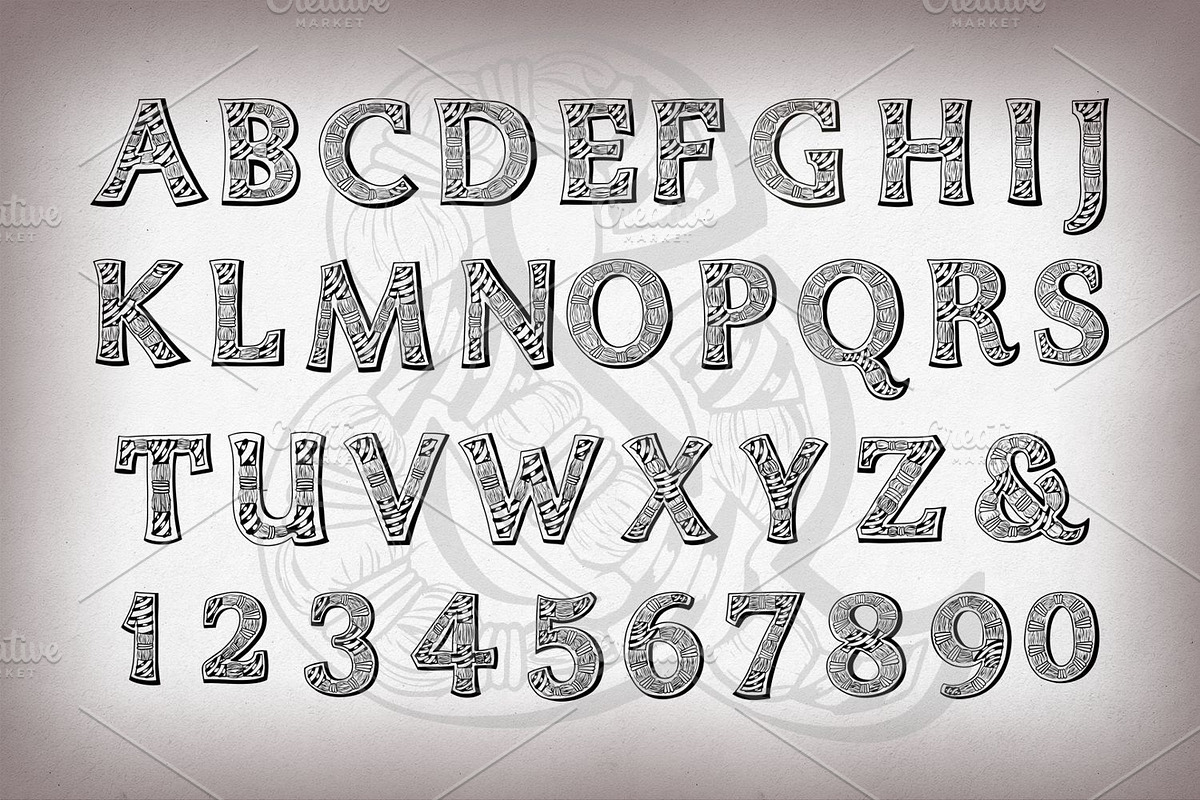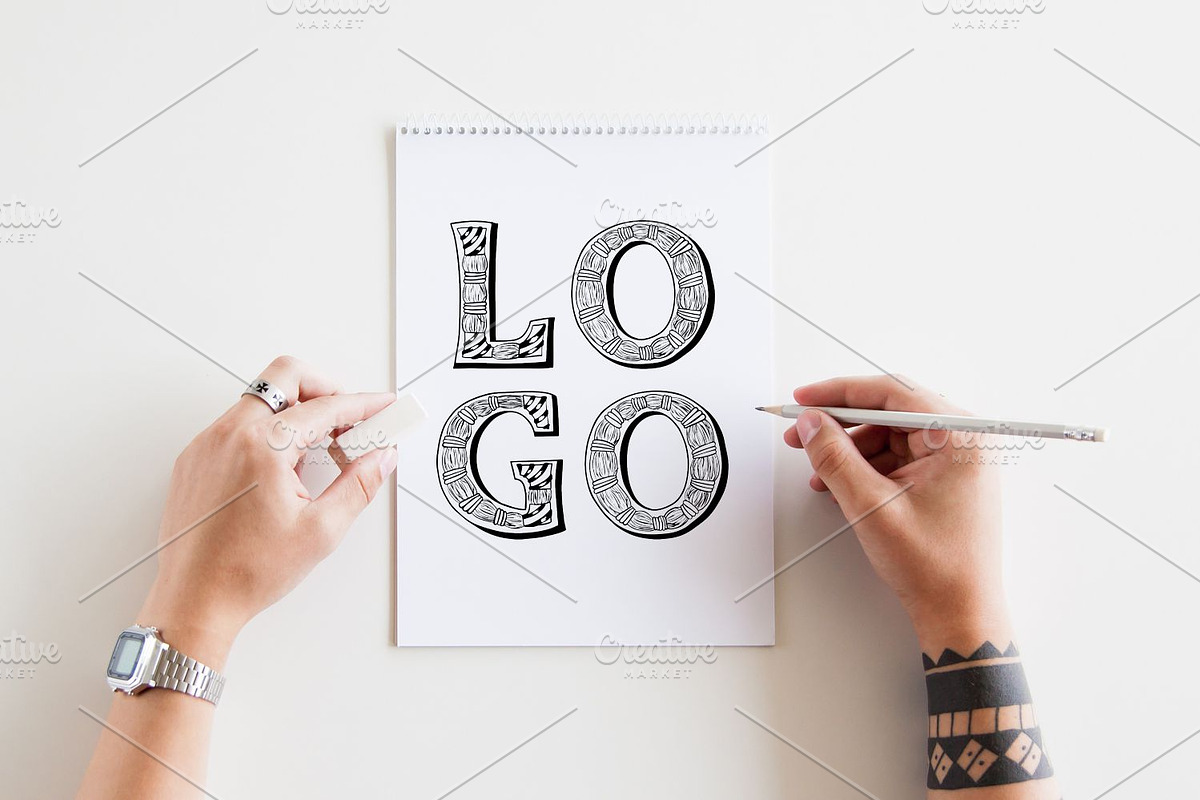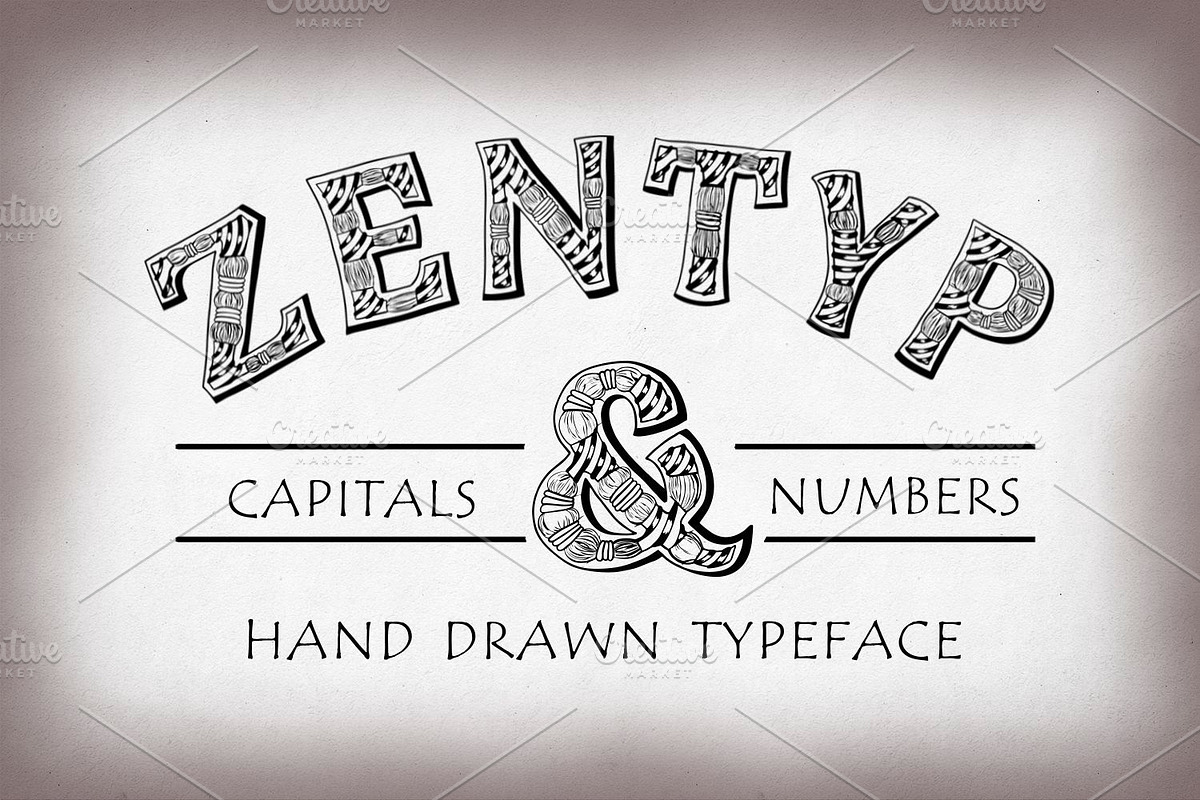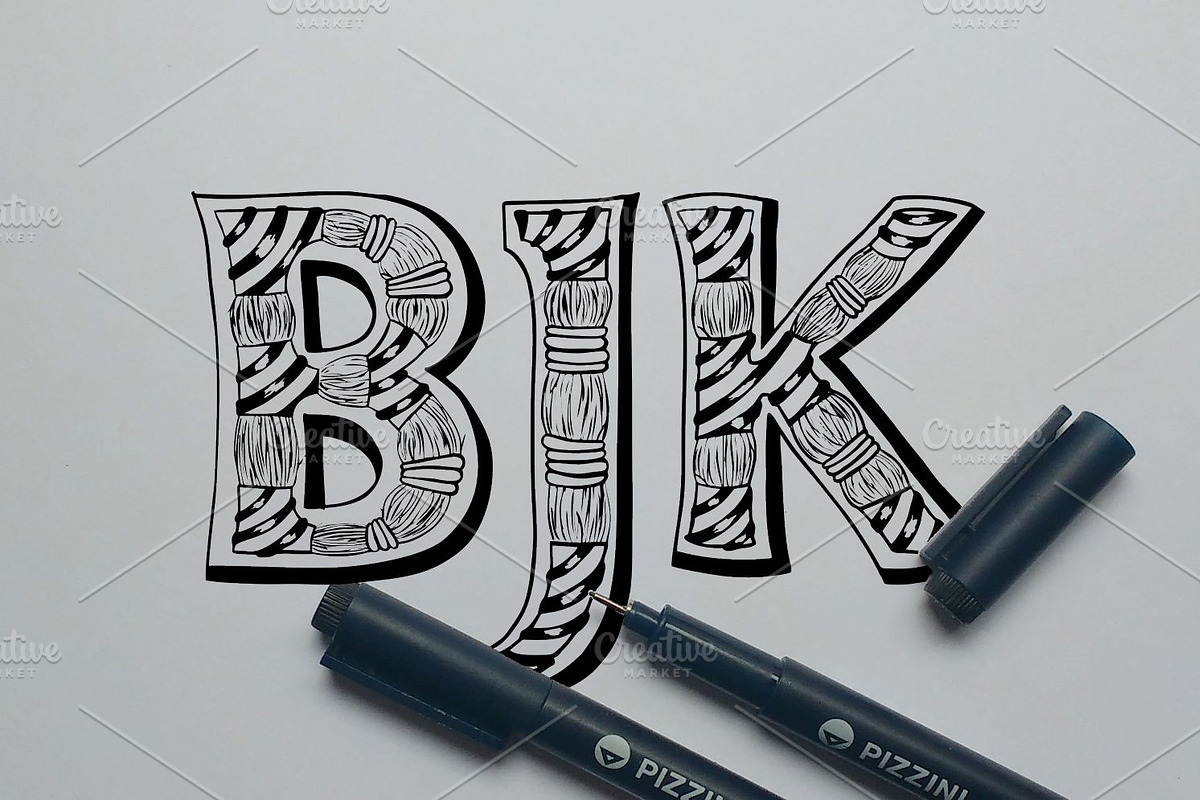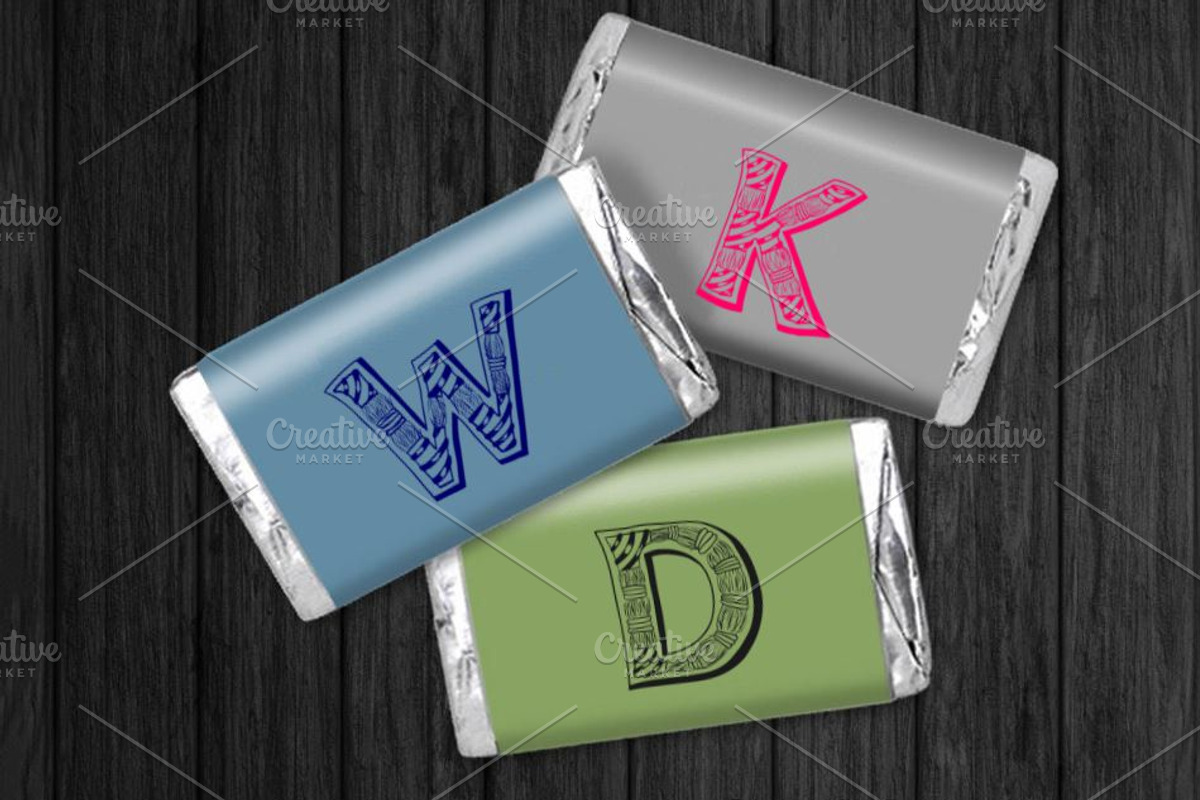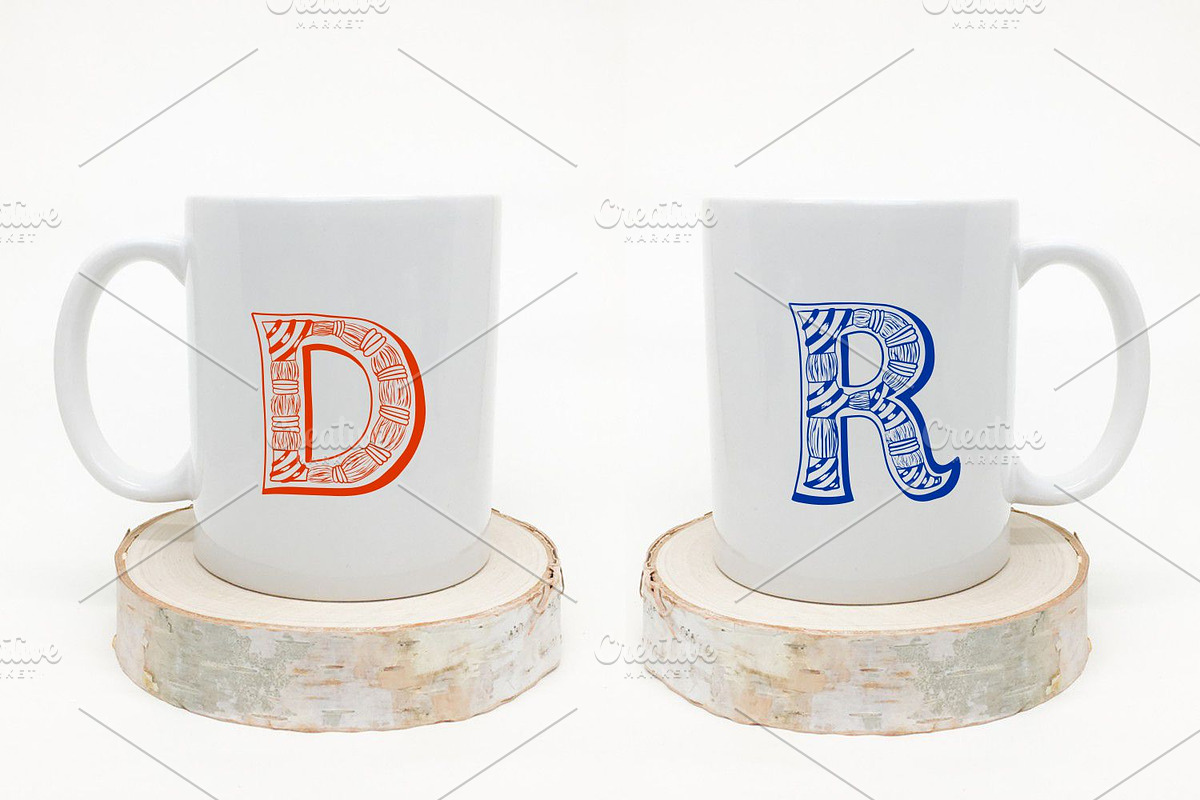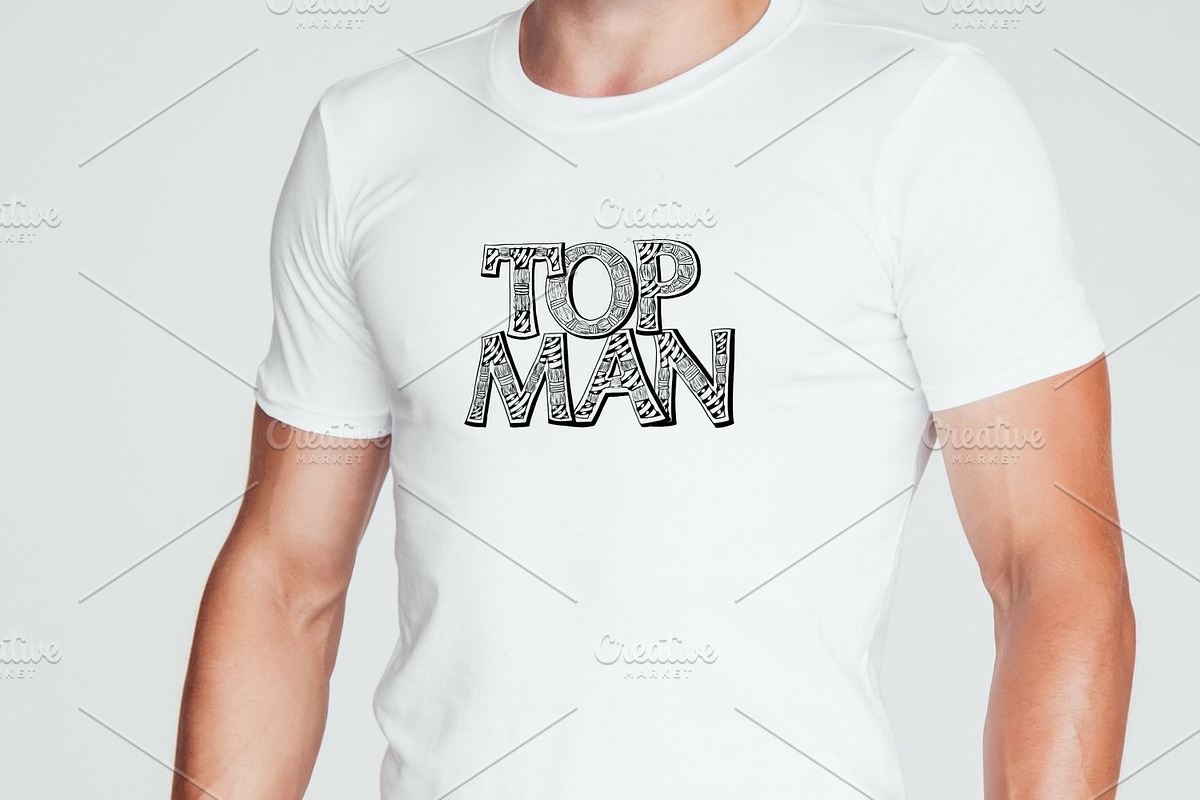
Zentyp
Introducing Zentyp - a hand crafted uppercase font. Characters are as pictured.
Why Zentyp is worth a look
Zentyp by Digital Typeface Studio fits naturally into Branding, posters, packaging, typography.